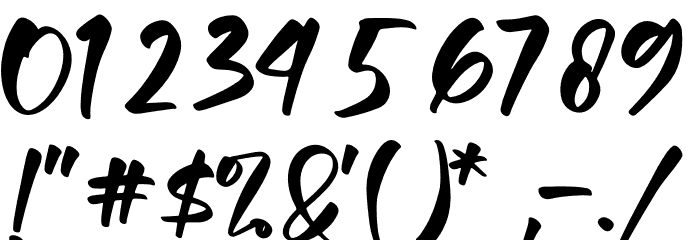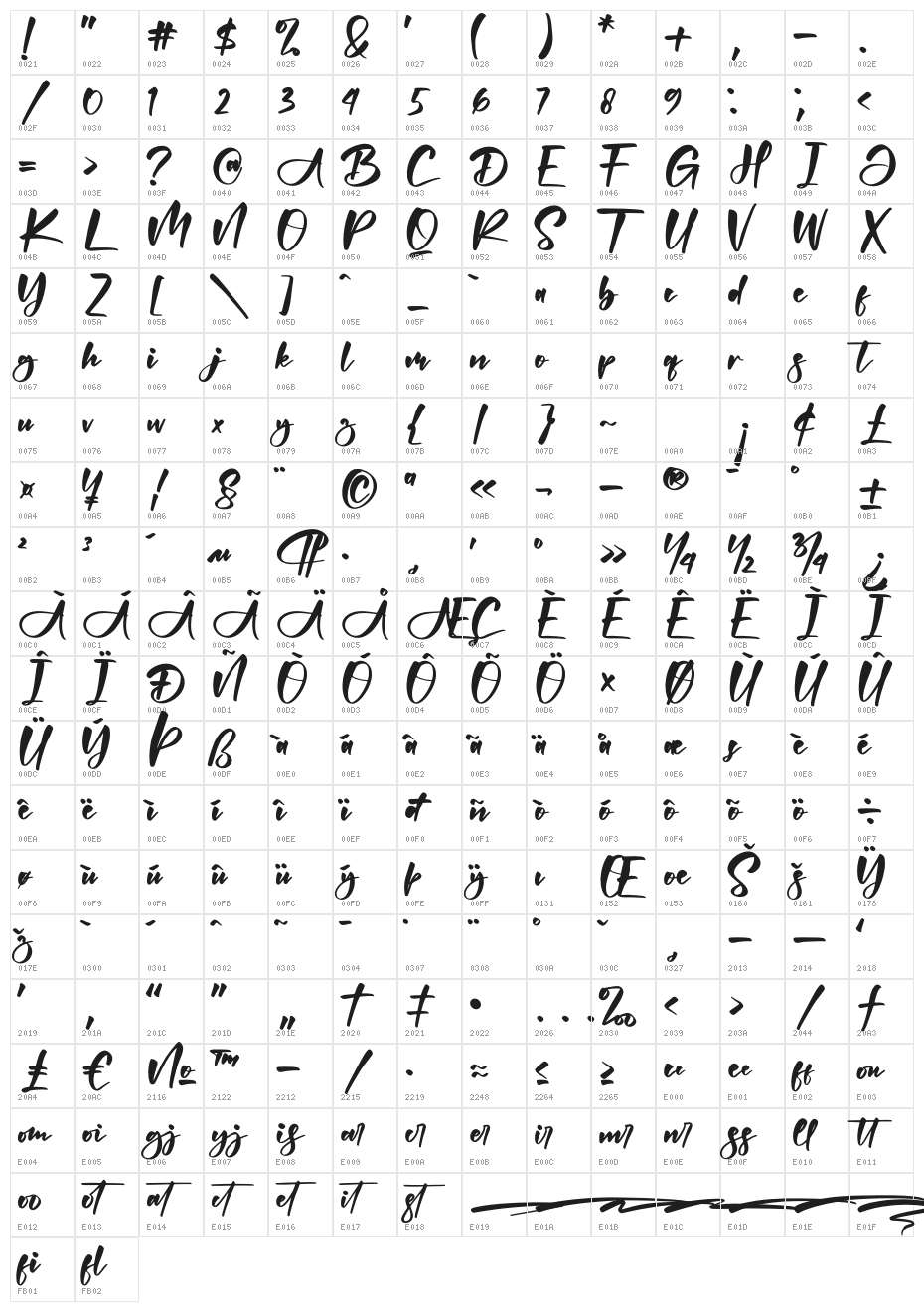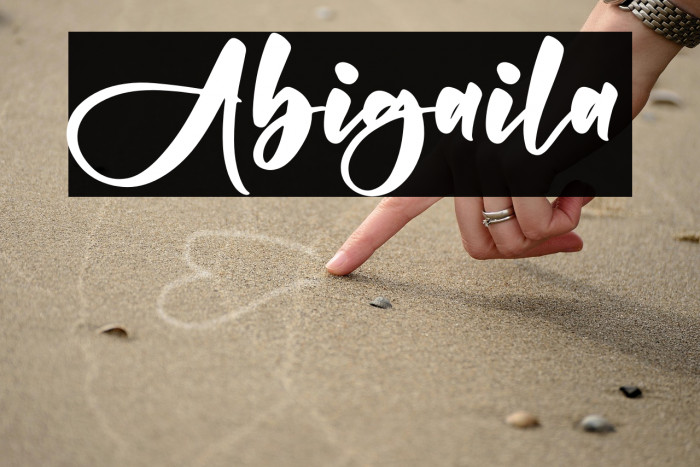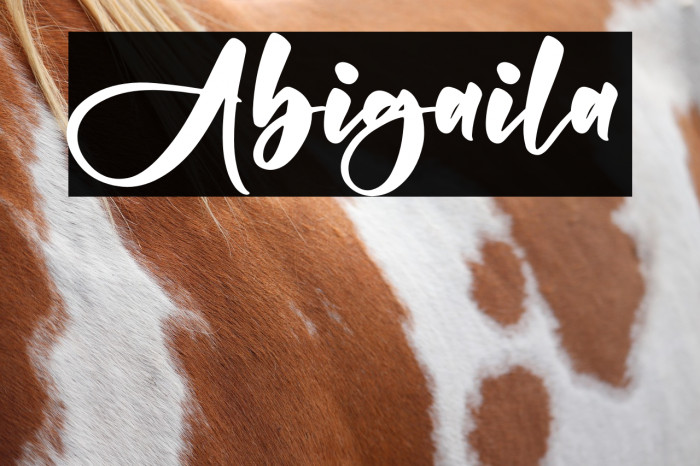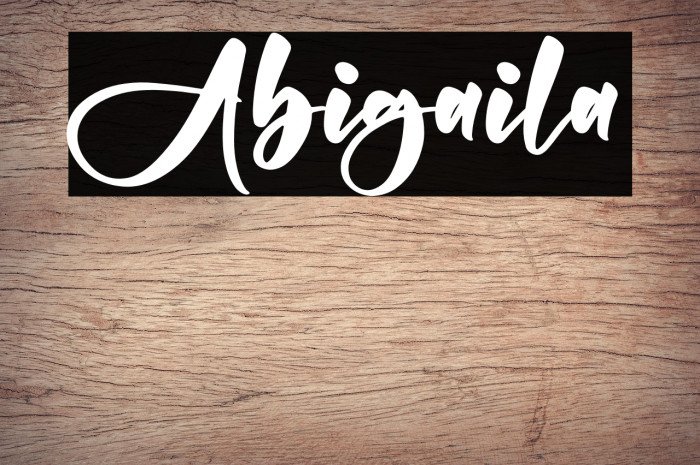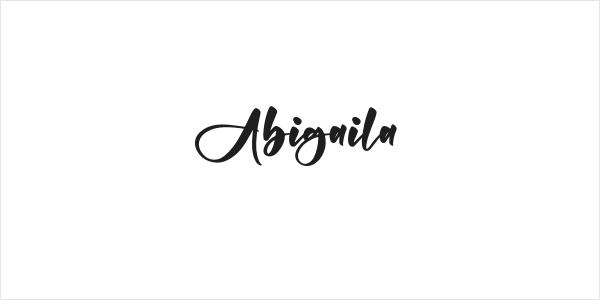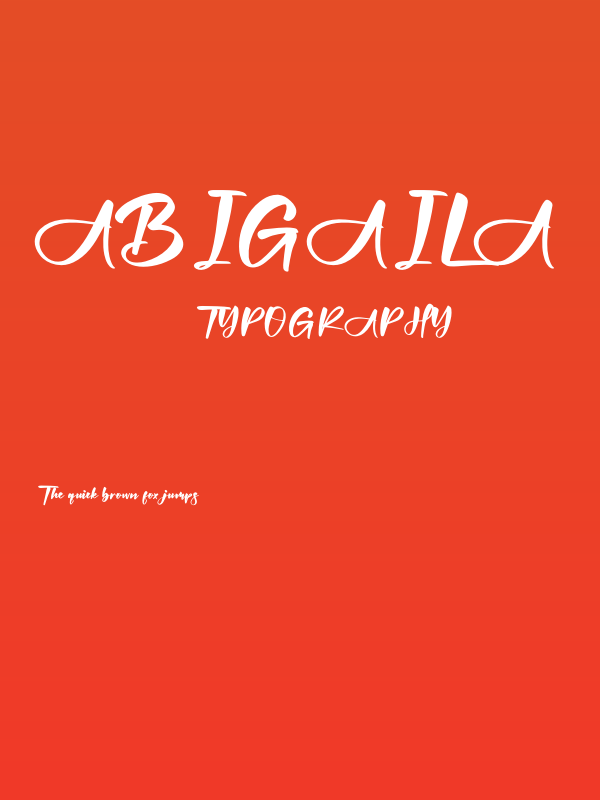
Abigaila Font
Abigaila Description
This font features a dynamic and expressive handwritten style, characterized by its fluid and cursive letterforms. The uppercase letters exhibit a playful yet elegant flair, with varying stroke widths that add a sense of movement and energy. Lowercase letters maintain a consistent flow, with some characters featuring distinctive loops and swashes that enhance its artistic appeal. The numerals and special characters are crafted with the same attention to detail, ensuring a cohesive look across all elements. This font's bold presence makes it suitable for eye-catching designs, while its legibility ensures it remains functional for various applications.
Use CaseLogos, Headlines, Invitations
Proposed ProjectsIdeal for branding, invitations, greeting cards, and social media graphics.